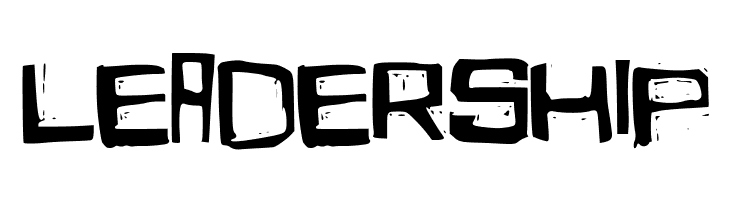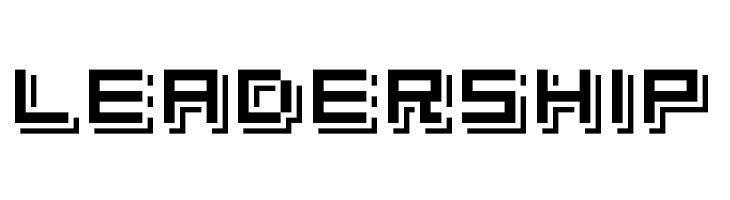
• Edushare
A bold, hand-drawn font with a textured, playful appearance.
• Edward Scissorhands
A bold, edgy font with sharp, angular lines and a gothic style.
• eEZ WIN
A bold, brushstroke-style font with a dynamic and textured appearance.
• EFEK JERA
A bold, distressed font with irregular, jagged edges and a chaotic style.
• Effe
( vitadastudentidellemedie.blogspot.com )
A playful, handwritten font with a casual and informal style.
• EffeNewVersion
• Effinground
( Robothaus - Patrick McGrath - robothaus.com )
A bold, outlined serif font with a classic and decorative style.
• Effloresce-Bold
A bold serif font with high contrast and classic elegance.
• Effloresce-BoldItalic
A bold, italic serif font with a dynamic and elegant style.
• Effloresce-Italic
An elegant italic font with smooth, flowing lines and moderate contrast.
• Effloresce-Regular
An elegant serif font with high contrast and sharp serifs, perfect for classic and refined designs.
• EffloresceAntique-Regular
A vintage serif font with elegant, elongated letterforms and subtle serifs.
• Egg
( Fonts by Zemma )
A playful, handwritten font with smooth, flowing lines and a casual style.
• Eggless Almond
A bold, brush-style font with a hand-drawn, artistic look.
• Eggmode
• EggsExtraYolk
• Eggy Pudding Regular
( Fonts by Wizzah )
• Egima
A bold, brush-style font with high contrast and artistic flair.